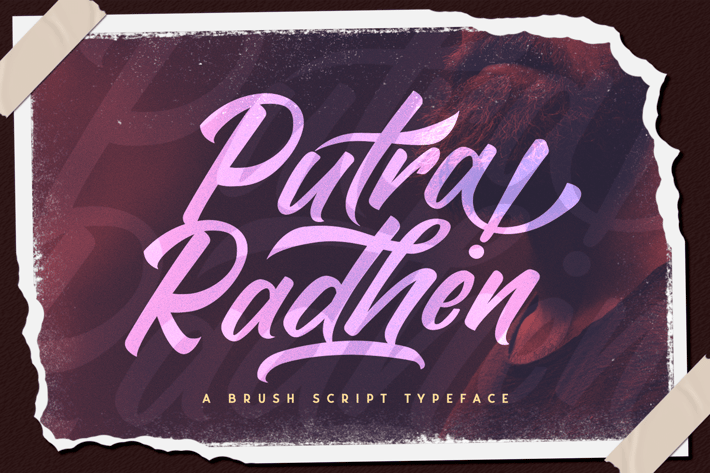
Putra Raden - Brush Script Font
Introducing Putra Raden - Modern Brush Script Font
Putra Raden is a flowing and elegant handwritten font, created with the help of a brush pen. Get inspired by its unique and beautiful style and add it to your favorite designs!